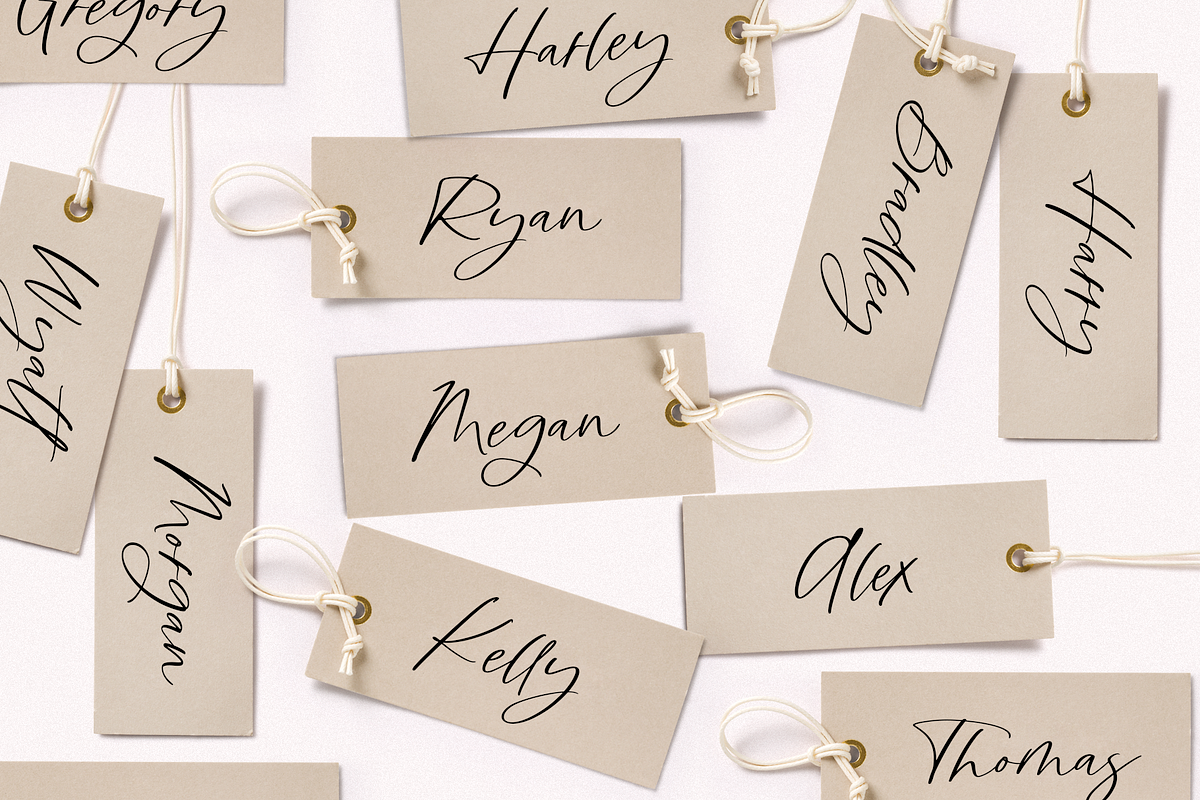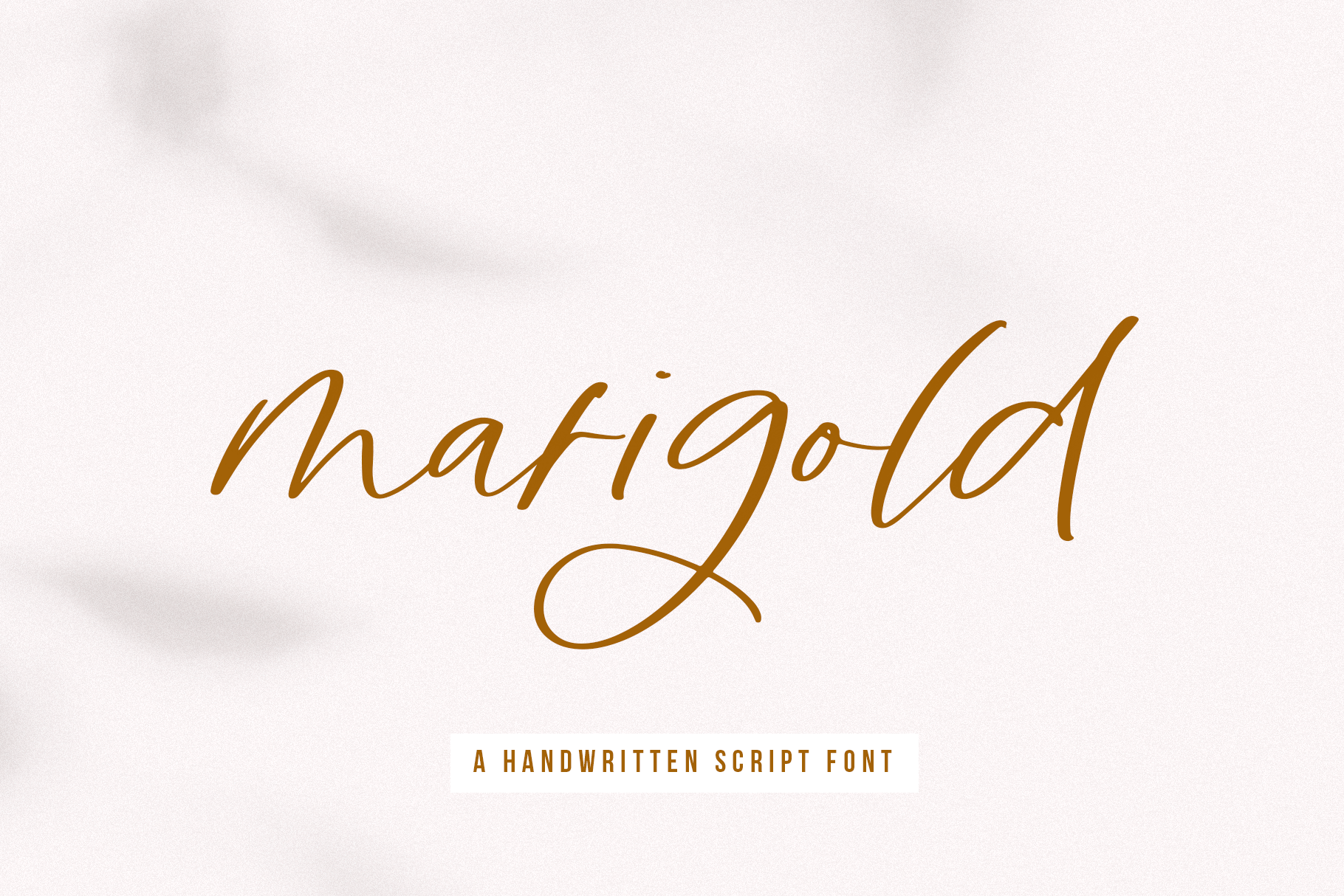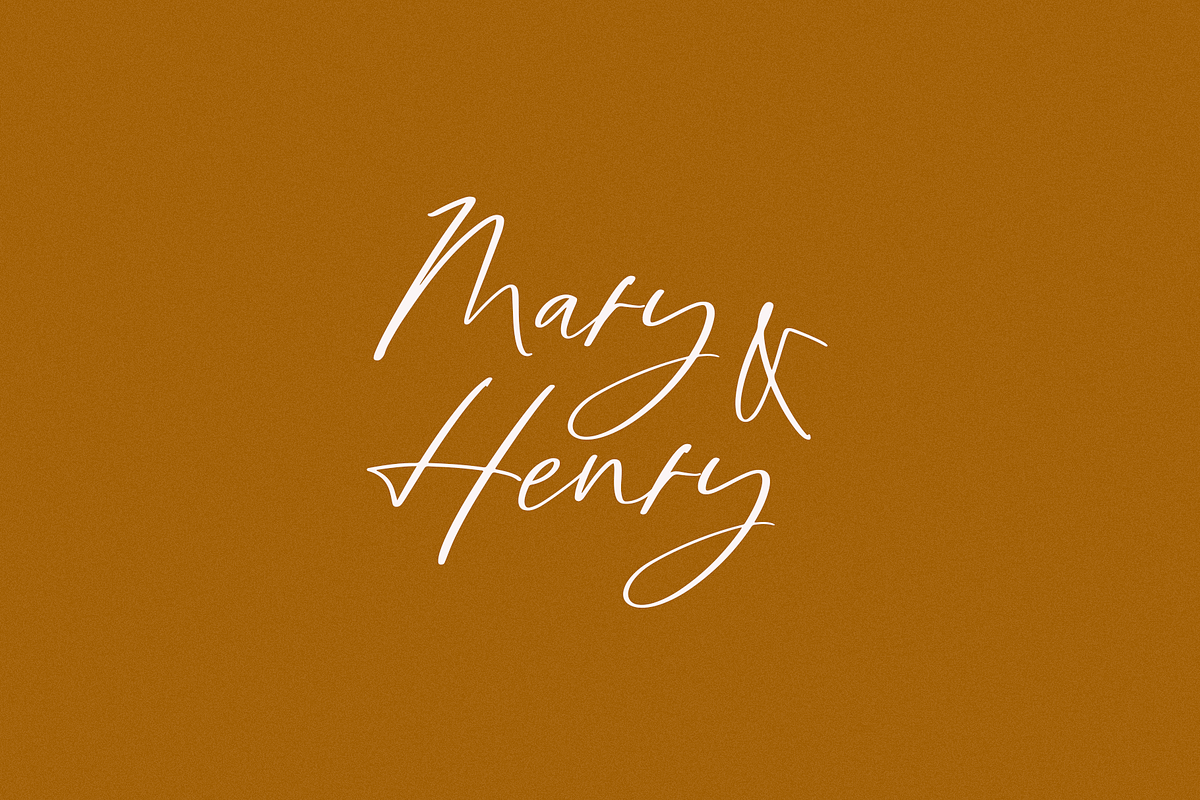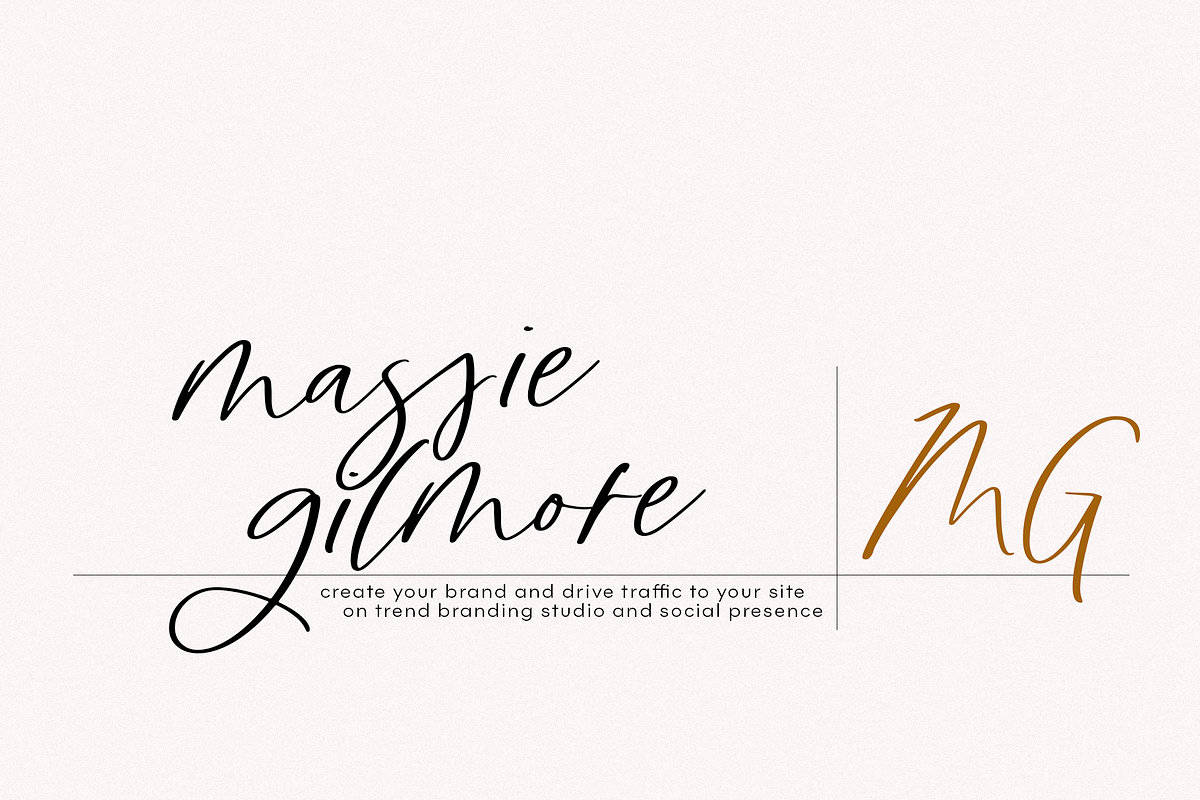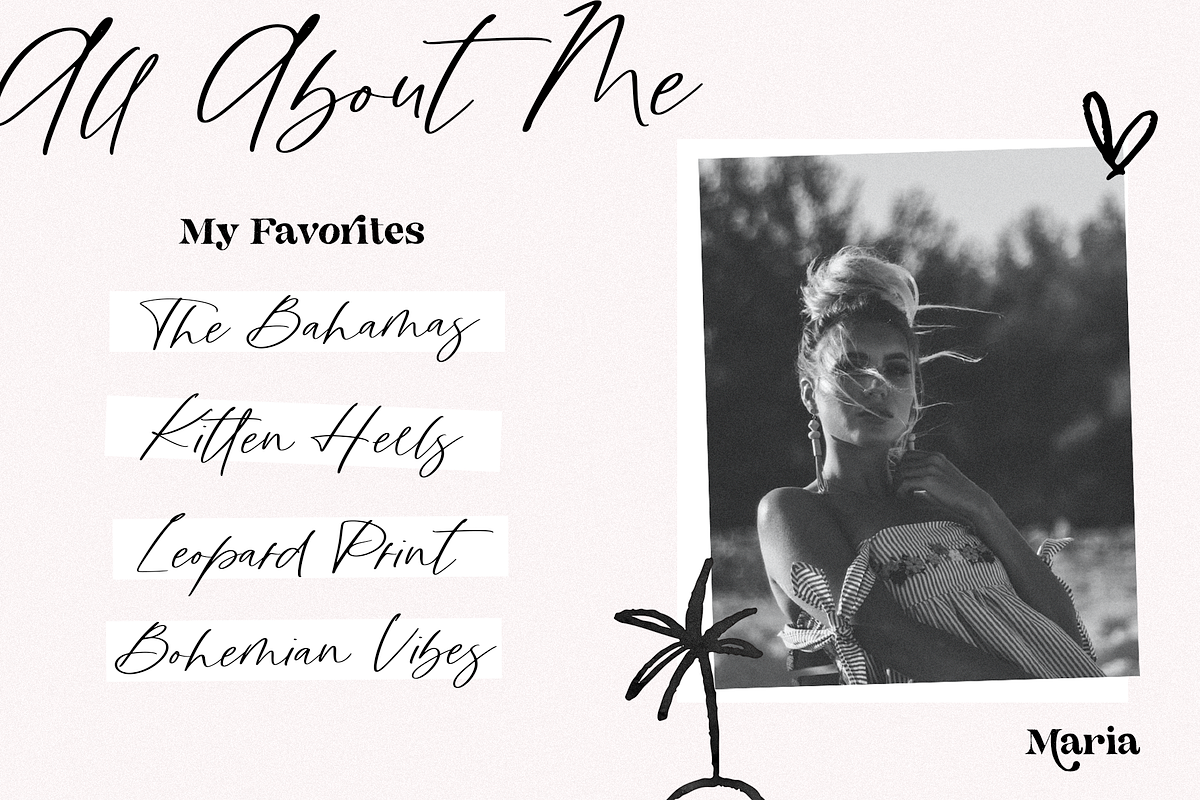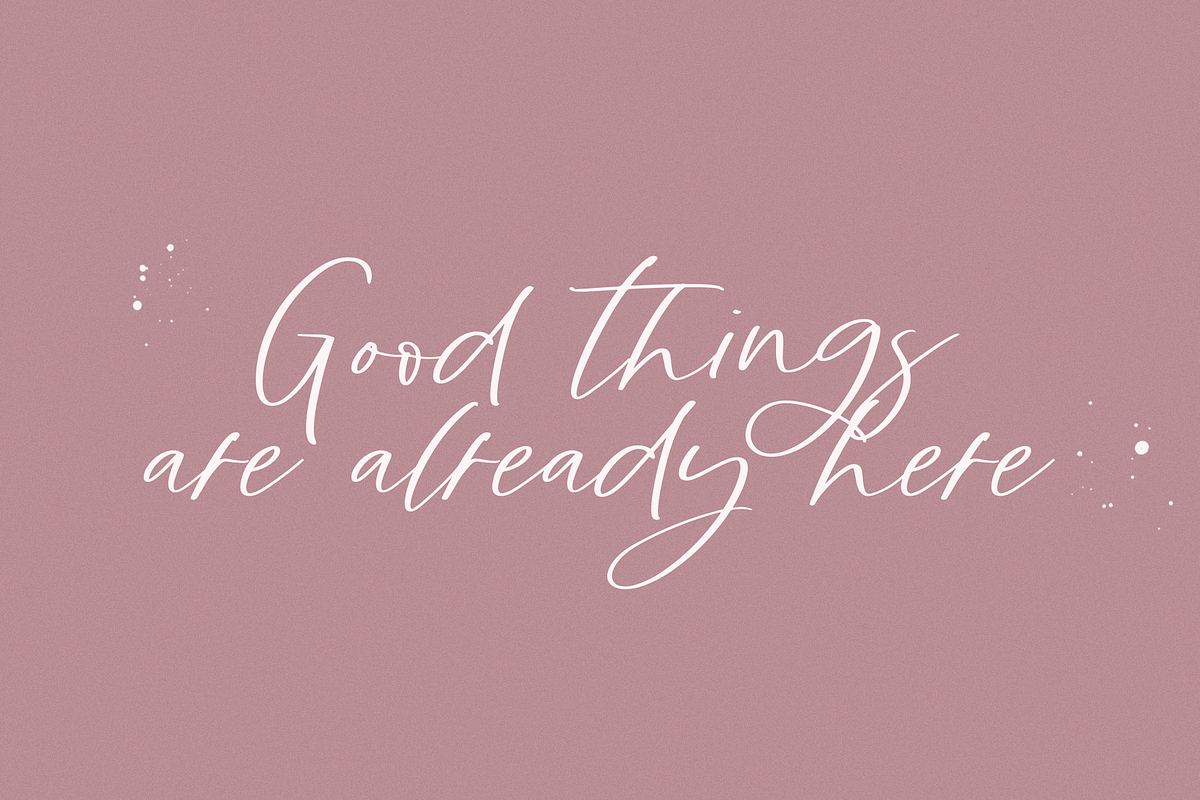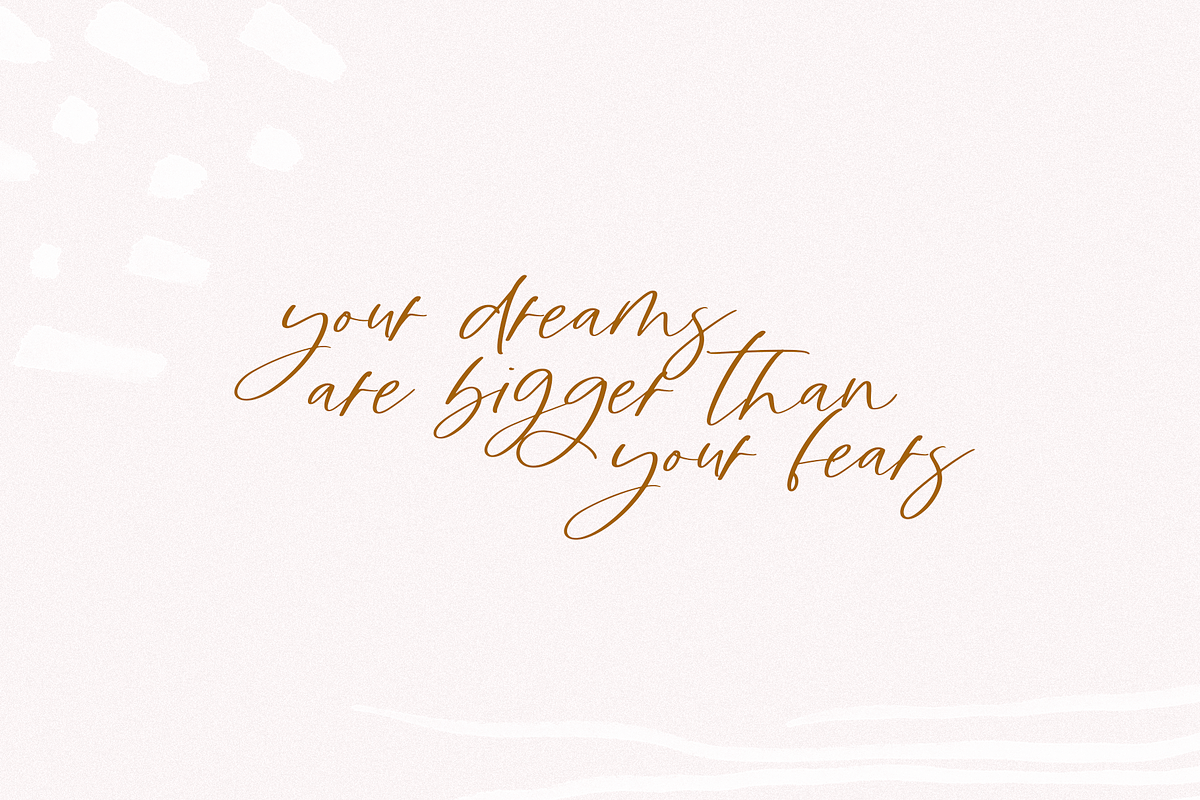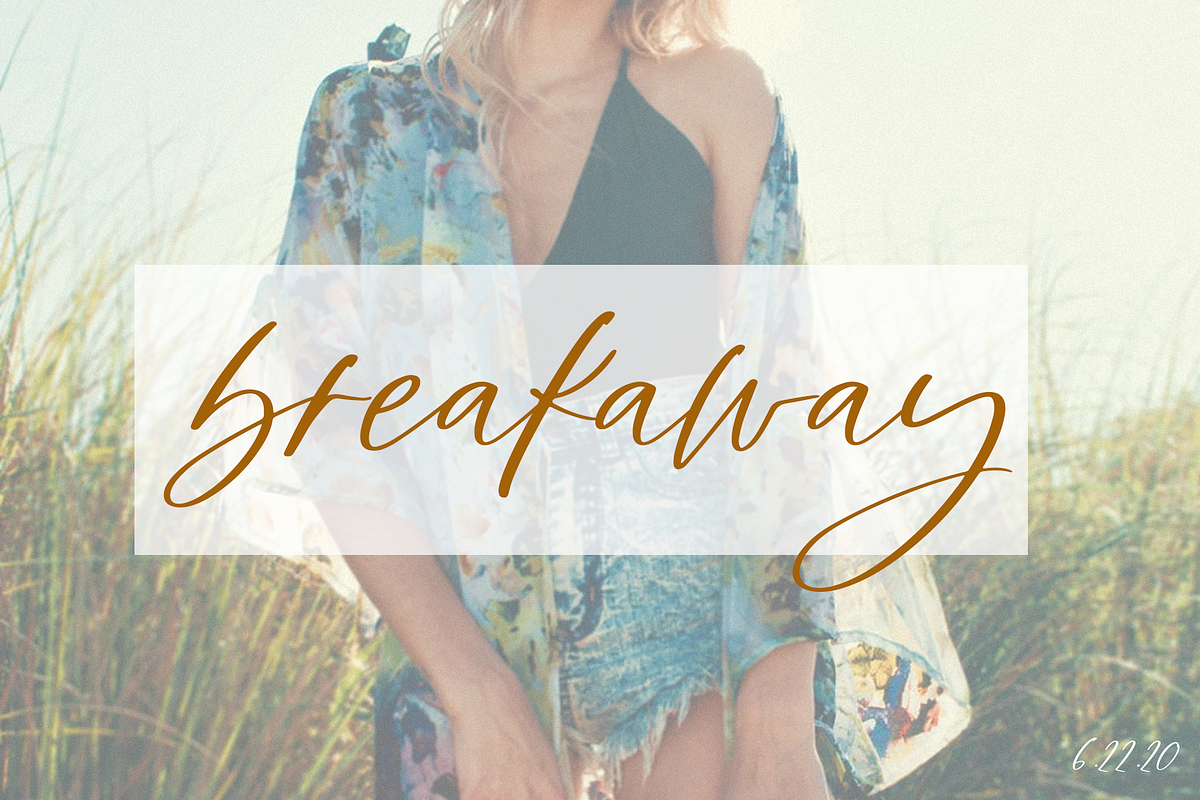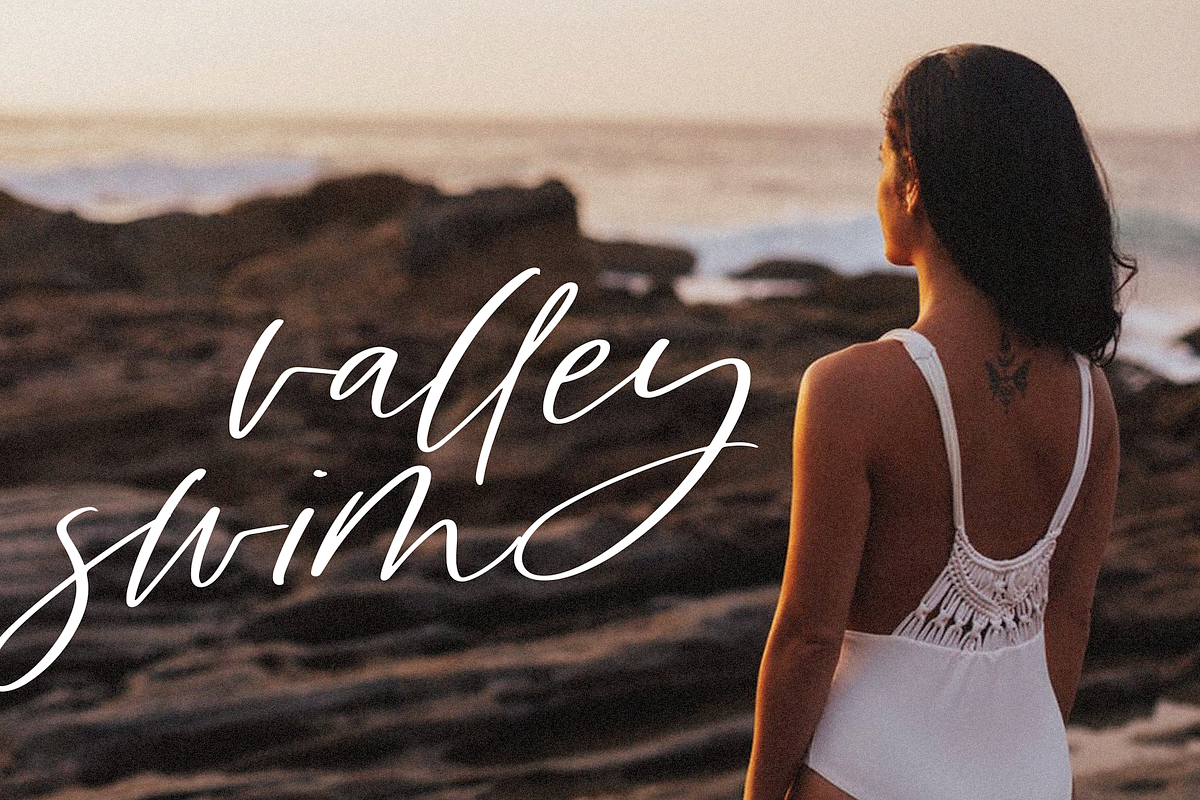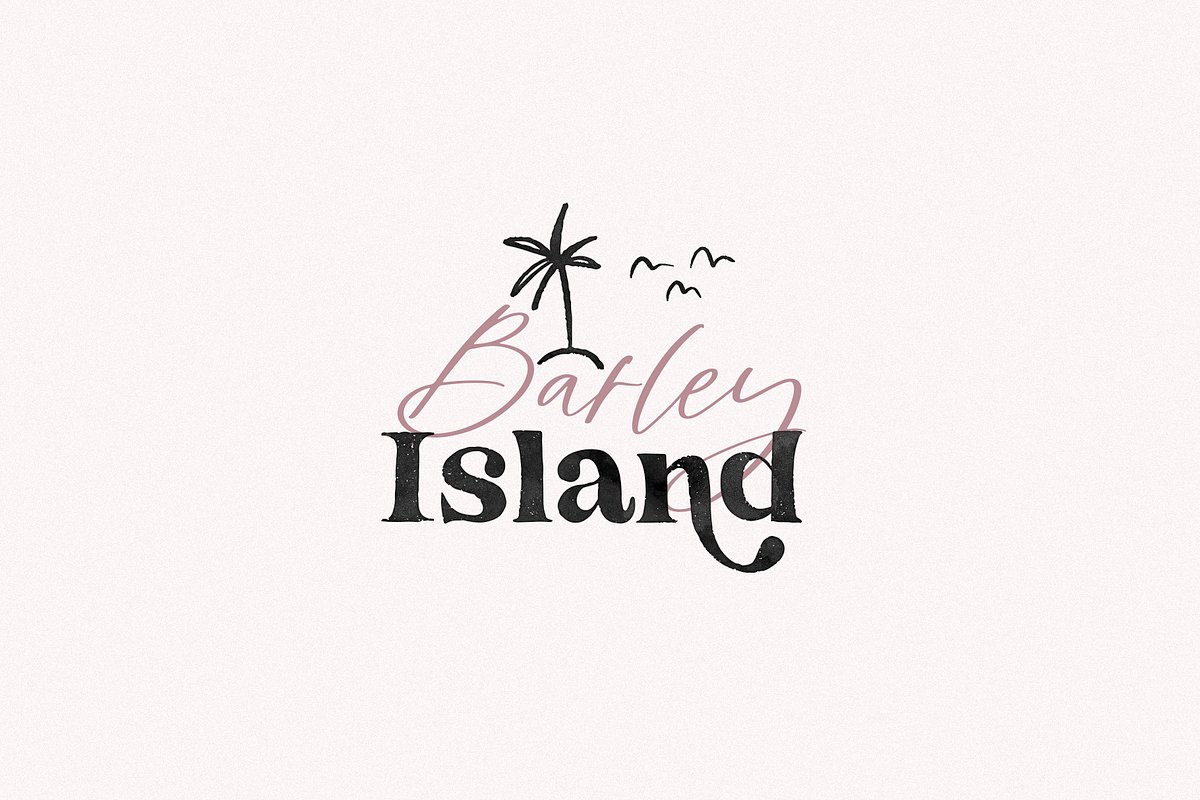
Marigold | Handwritten Script Font
Marigold is a chic handwritten font. It has a thin modern calligraphy look making it perfect for branding and digital designs.
Most accent characters included.